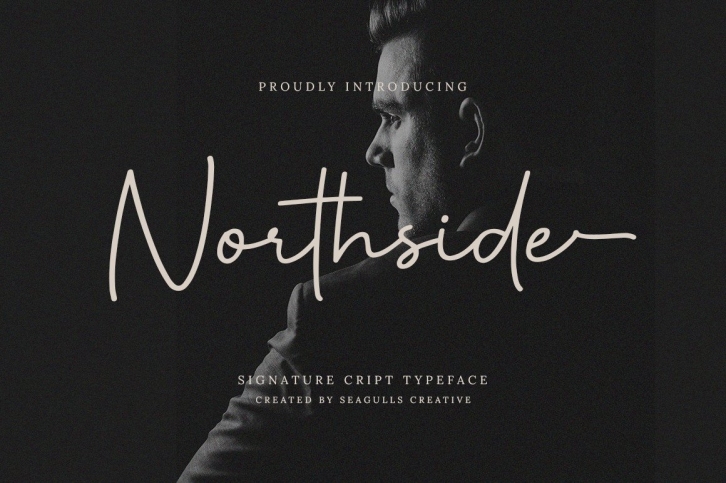
Northside is a signature script typeface with a casual and elegant style. It’s perfect for signatures, labels, watermarks, photography, weddings, business cards, stationery, quotes, logos, branding projects, product packaging, social media posts, and other awesome projects.